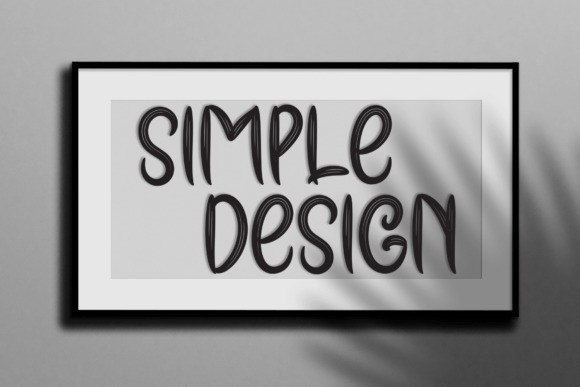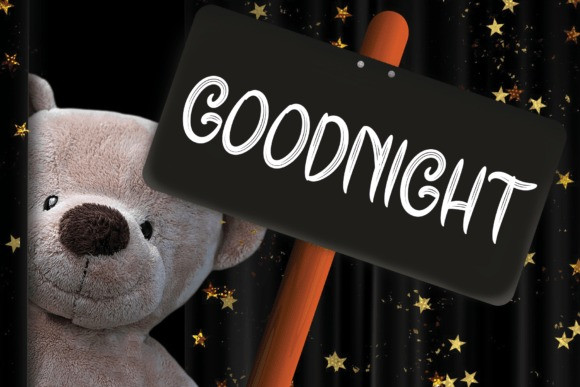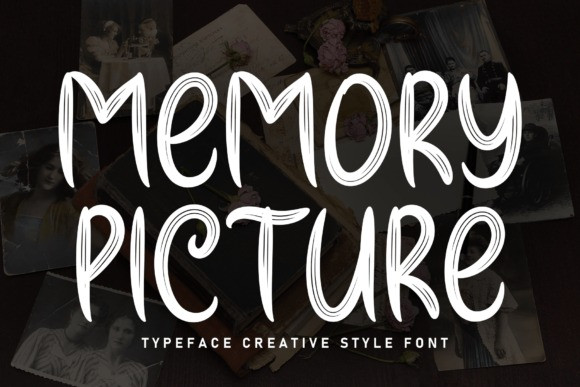
Memory Picture Font
Memory Picture Font is a sweet and friendly handwritten display font. Fresh and cute, this font is ideal for writing wedding invitations, cards, or any other design that might need a fun touch!